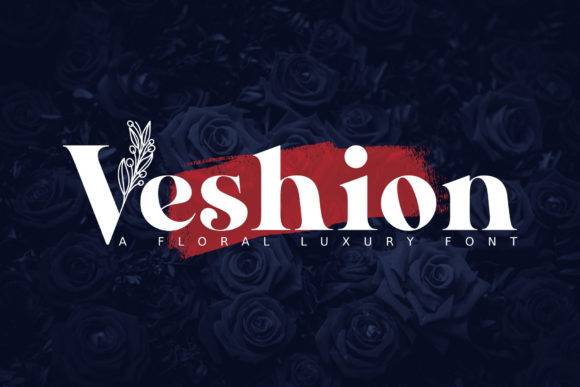
Behold the AL Veshion Font, a typographic masterpiece that exudes elegance and sophistication. Crafted by the visionary artists at Aluyeah Studio, this display font is a testament to the transformative power of creativity. With its captivating curves, delicate swashes, and graceful serifs, AL Veshion Font invites you to embark on a journey of visual enchantment.
Step into a realm of boundless possibilities, where words are adorned with an air of timeless beauty. AL Veshion Font's inherent versatility makes it the perfect companion for a myriad of creative endeavors. Design wedding invitations that whisper of romance, fashion magazines that radiate glamour, and branding materials that leave an indelible impression. Unleash your inner artist and let your imagination run wild as you explore the endless applications of this captivating font.
Transport yourself to a world of elegance and refinement, where every letter is a work of art. AL Veshion Font's intricate details and sweeping strokes command attention, adding a touch of luxury to your designs. Create packaging that exudes exclusivity, social media posts that captivate audiences, and restaurant menus that entice diners with a promise of culinary excellence.
With AL Veshion Font as your creative ally, you hold the key to unlocking a world of beauty and wonder. Its versatility knows no bounds, allowing you to express your individuality across a spectrum of projects. Whether you're crafting heartfelt greeting cards, designing eye-catching headers, or simply adding a touch of flair to your personal correspondence, AL Veshion Font will elevate your words with grace and sophistication.